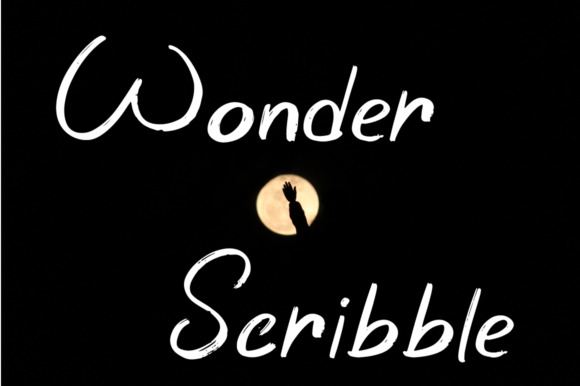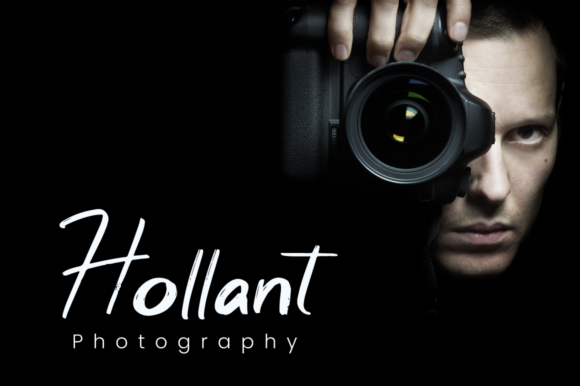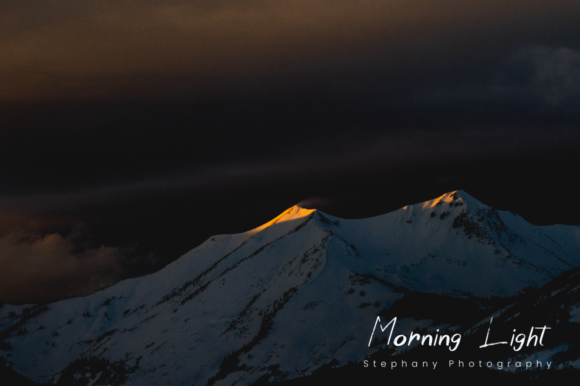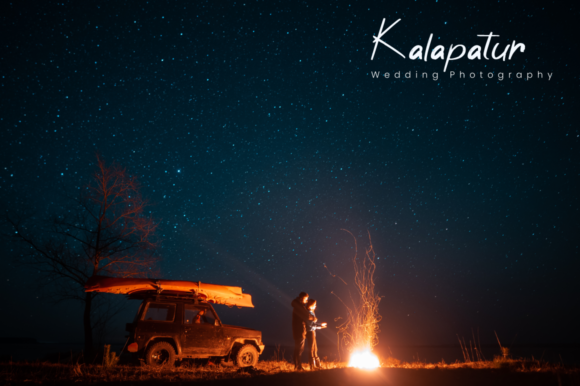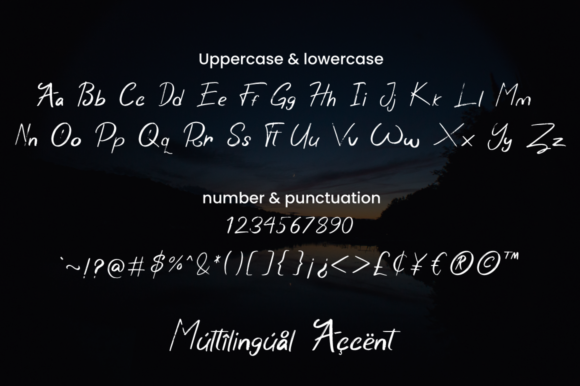
About Wonder Scribble Font
Wonder Scribble is an unique handwritten font. Whether you’re using it for crafting, digital designing, presentations, or greeting card making, it’s perfect!